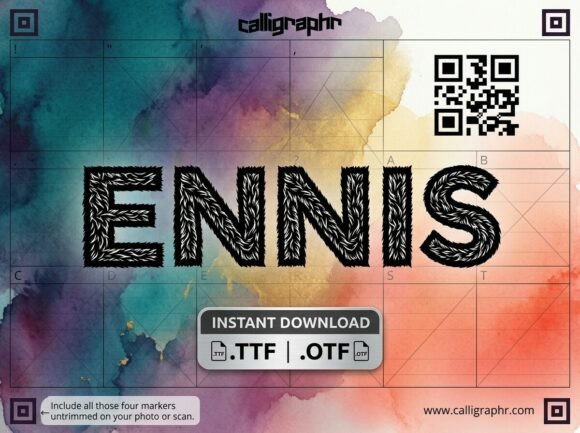
Unleash Your Creativity with Ennis Font: The Wild and Textured Display Typeface
Are you tired of using the same old fonts for your creative projects? Do you want to add a touch of wildness and texture to your designs? Look no further than Ennis Font, a striking and organic display typeface that’s perfect for making a statement. In this article, we’ll dive into the world of Ennis Font and explore its unique features, uses, and benefits for designers and crafters.
The Unique Characteristics of Ennis Font
Ennis Font is a one-of-a-kind display typeface that boasts a raw, organic texture and striking contrast. Its wild and textured appearance makes it stand out from more traditional fonts, adding a touch of edginess and sophistication to any design. With Ennis Font, you can infuse your creative canvas with a sense of ruggedness and uniqueness that’s sure to capture attention.
Perfect for Alternative and Edgy Designs
Ennis Font is particularly well-suited for alternative fashion lookbooks, exotic animal conservation branding, cinematic movie posters, creative product packaging, and edgy streetwear logotypes. Its bold and rugged appearance makes it a top-tier choice for designers who want to create a lasting impression. Whether you’re working on a fashion brand, a movie poster, or a product package, Ennis Font is sure to add a touch of wildness and sophistication.
Key Features of Ennis Font
- Raw and Organic Texture: Ennis Font features a unique, textured appearance that adds a touch of ruggedness to any design.
- Striking Contrast: The font’s bold and contrasting lines create a visually striking effect that’s sure to capture attention.
- Wild and Edgy Appearance: Ennis Font’s wild and textured appearance makes it perfect for alternative and edgy designs.
- High-Quality Design: The font is designed with high-quality craftsmanship, ensuring a professional and polished look.
How to Use Ennis Font in Your Designs
Ennis Font is incredibly versatile and can be used in a variety of design applications. Here are a few ideas to get you started:
- Fashion Lookbooks: Use Ennis Font to add a touch of edginess and sophistication to your fashion lookbooks.
- Movie Posters: Create eye-catching movie posters with Ennis Font’s bold and rugged appearance.
- Product Packaging: Add a touch of wildness and texture to your product packaging with Ennis Font.
- Streetwear Logotypes: Use Ennis Font to create bold and eye-catching logotypes for your streetwear brand.
Benefits of Using Ennis Font
So why choose Ennis Font for your designs? Here are just a few benefits:
- Unique and Memorable: Ennis Font’s wild and textured appearance makes it a unique and memorable choice for designers.
- Versatile: The font can be used in a variety of design applications, from fashion lookbooks to movie posters.
- High-Quality: Ennis Font is designed with high-quality craftsmanship, ensuring a professional and polished look.
- Easy to Read: Despite its bold and textured appearance, Ennis Font is easy to read and understand.
In conclusion, Ennis Font is a wild and textured display typeface that’s perfect for designers and crafters who want to add a touch of raw organic texture and striking contrast to their creative canvas. With its unique features, versatility, and high-quality design, Ennis Font is a top-tier choice for alternative fashion lookbooks, exotic animal conservation branding, cinematic movie posters, creative product packaging, and edgy streetwear logotypes. So why settle for ordinary fonts when you can unleash your creativity with Ennis Font?